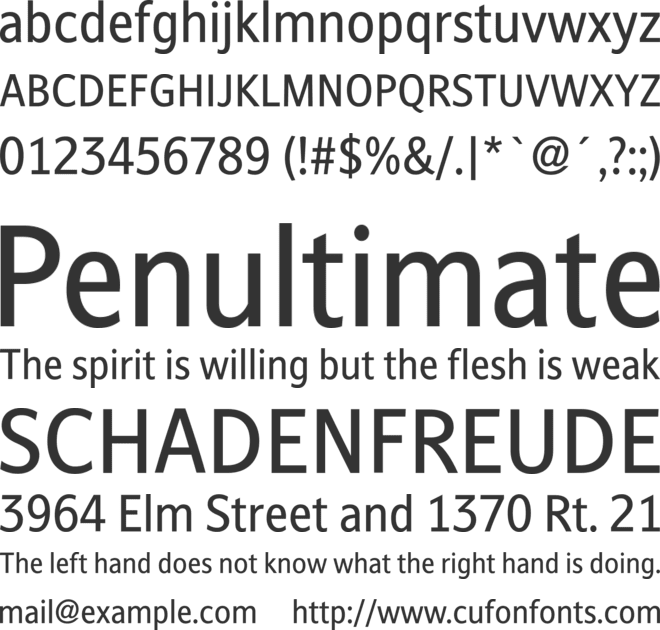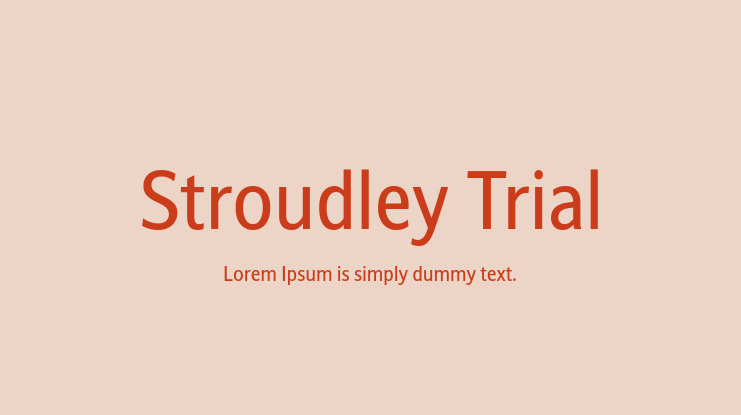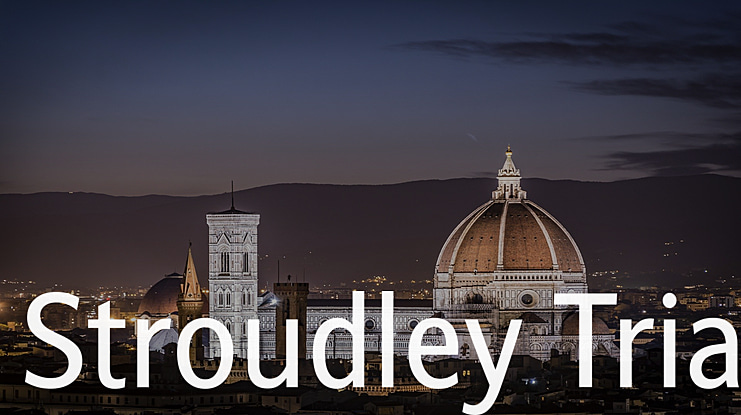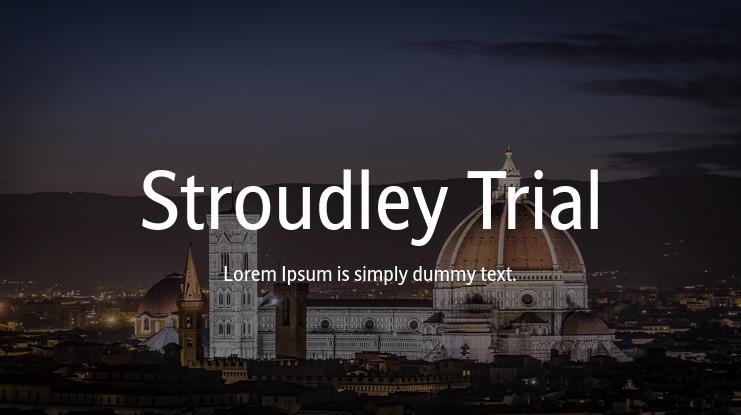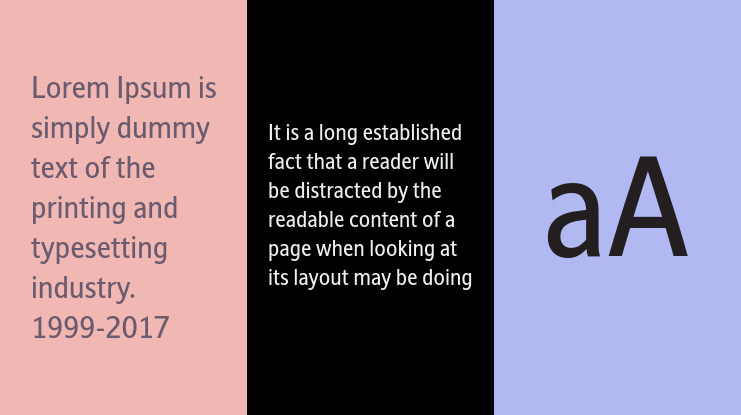
Stroudley Trial Font Family
Dalton Maag Ltd
This is an unorthodox Neo-Grotesk typeface devoted to versatility and beauty. It’s designed and shared by daltonmaag. Stroudley was designed for signage, but with structures carefully crafted to save space and provide the highest possible legibility, it can also confidently assist in any fiendish design problem.